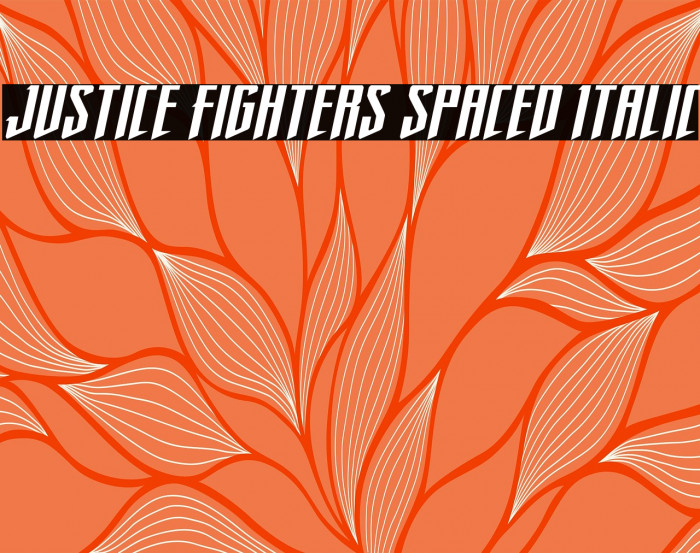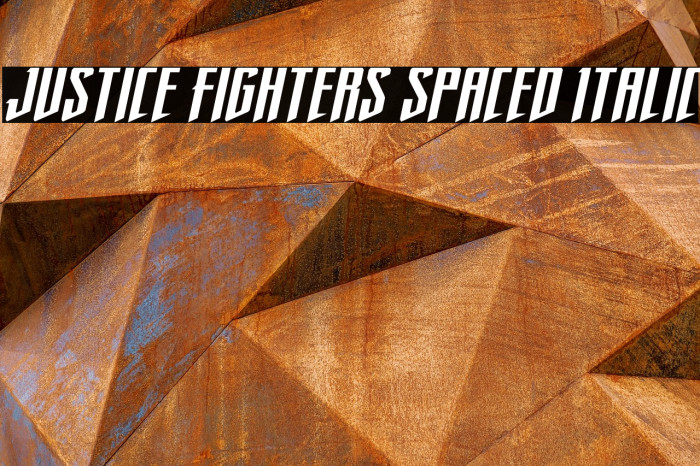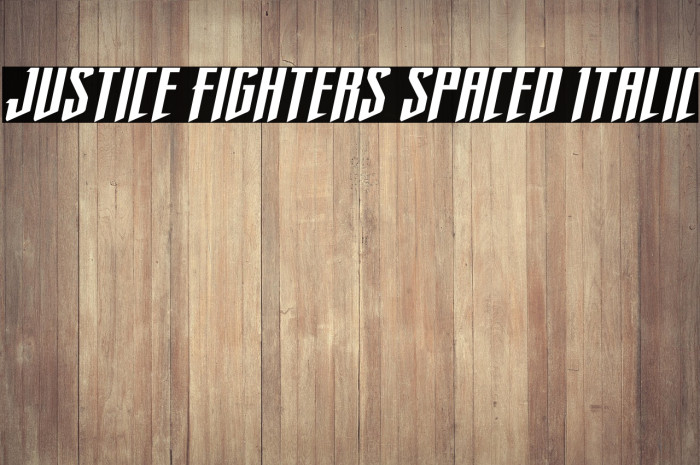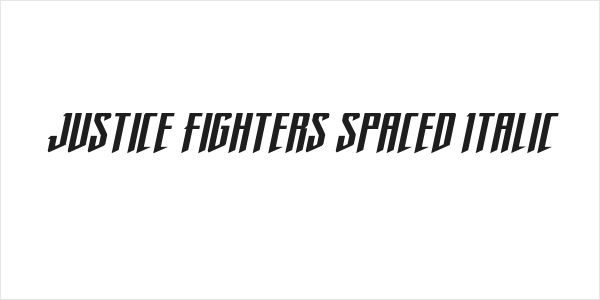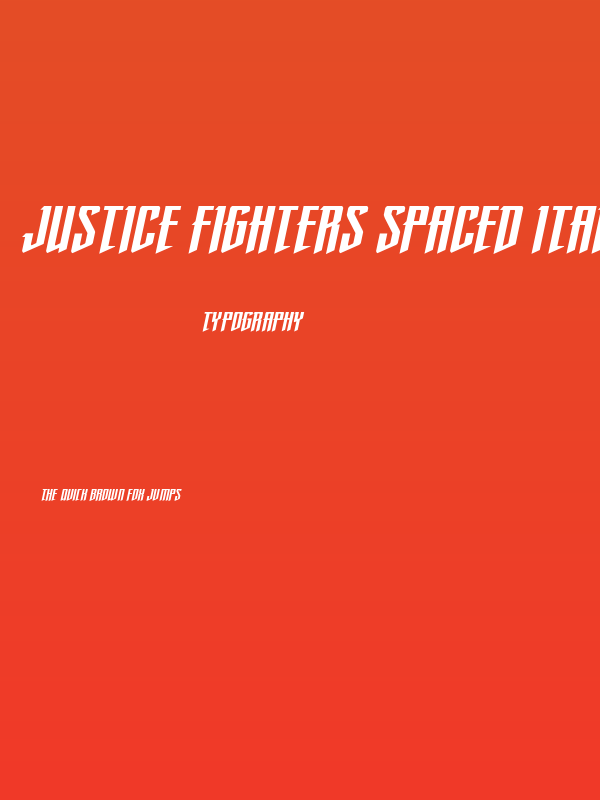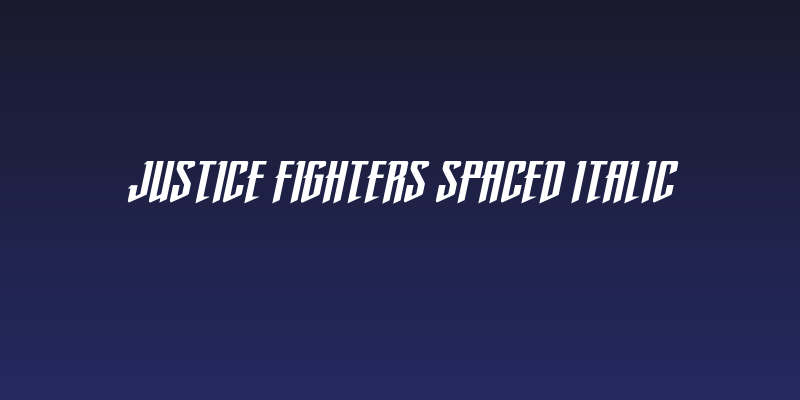
Justice Fighters Spaced Italic Font
Justice Fighters Spaced Italic Description
This font features a bold and dynamic style with a distinct italic slant, giving it a sense of motion and energy. The characters are elongated and angular, creating a sharp and aggressive appearance. The uppercase and lowercase letters maintain a consistent design, with the uppercase being particularly striking. Numbers and special characters follow the same bold and italicized theme, ensuring uniformity across all glyphs. The font's unique style makes it suitable for projects that require a strong and impactful visual presence.
| Proposed Projects | Ideal for action-themed posters, video game titles, sports branding, and dynamic logos. |